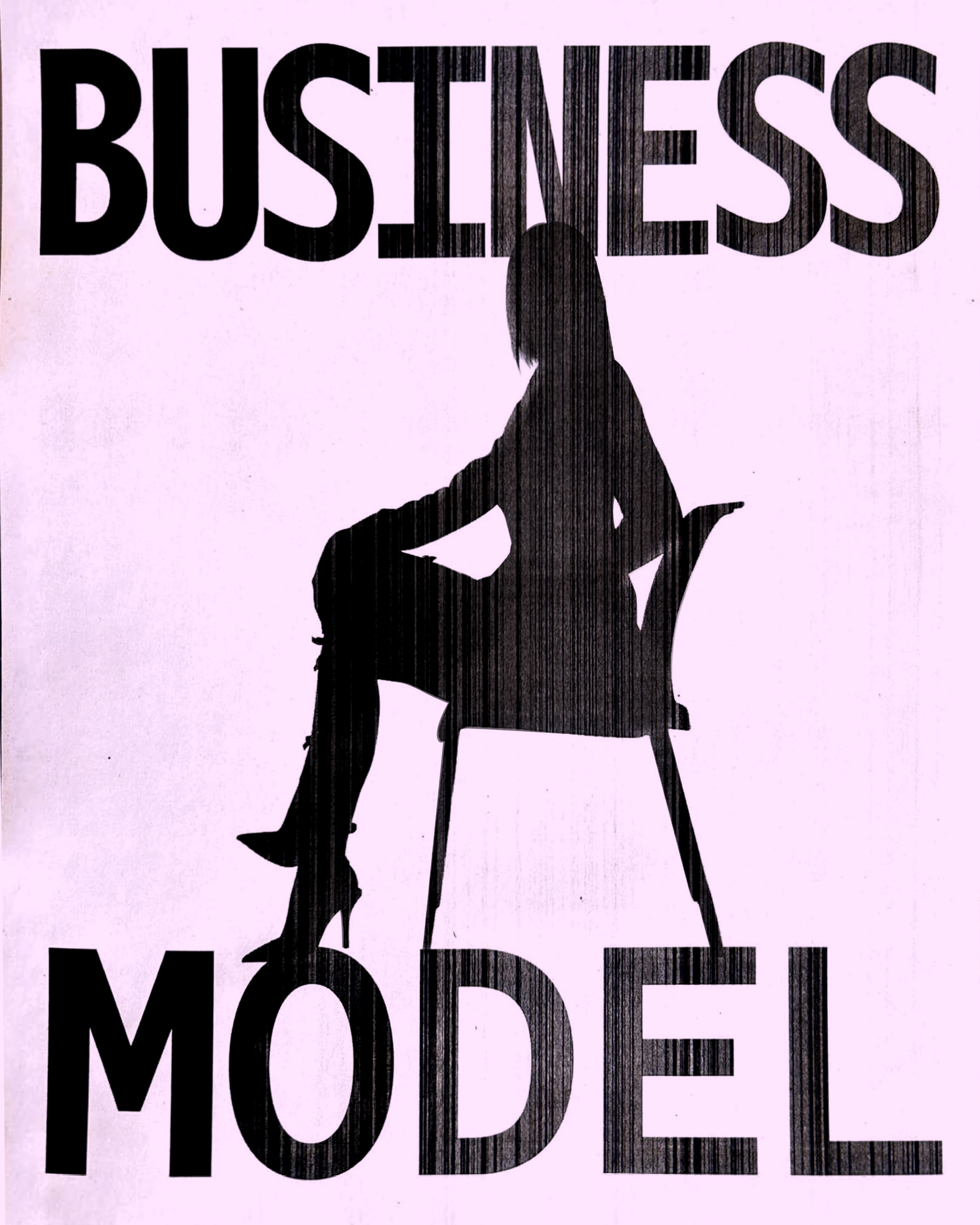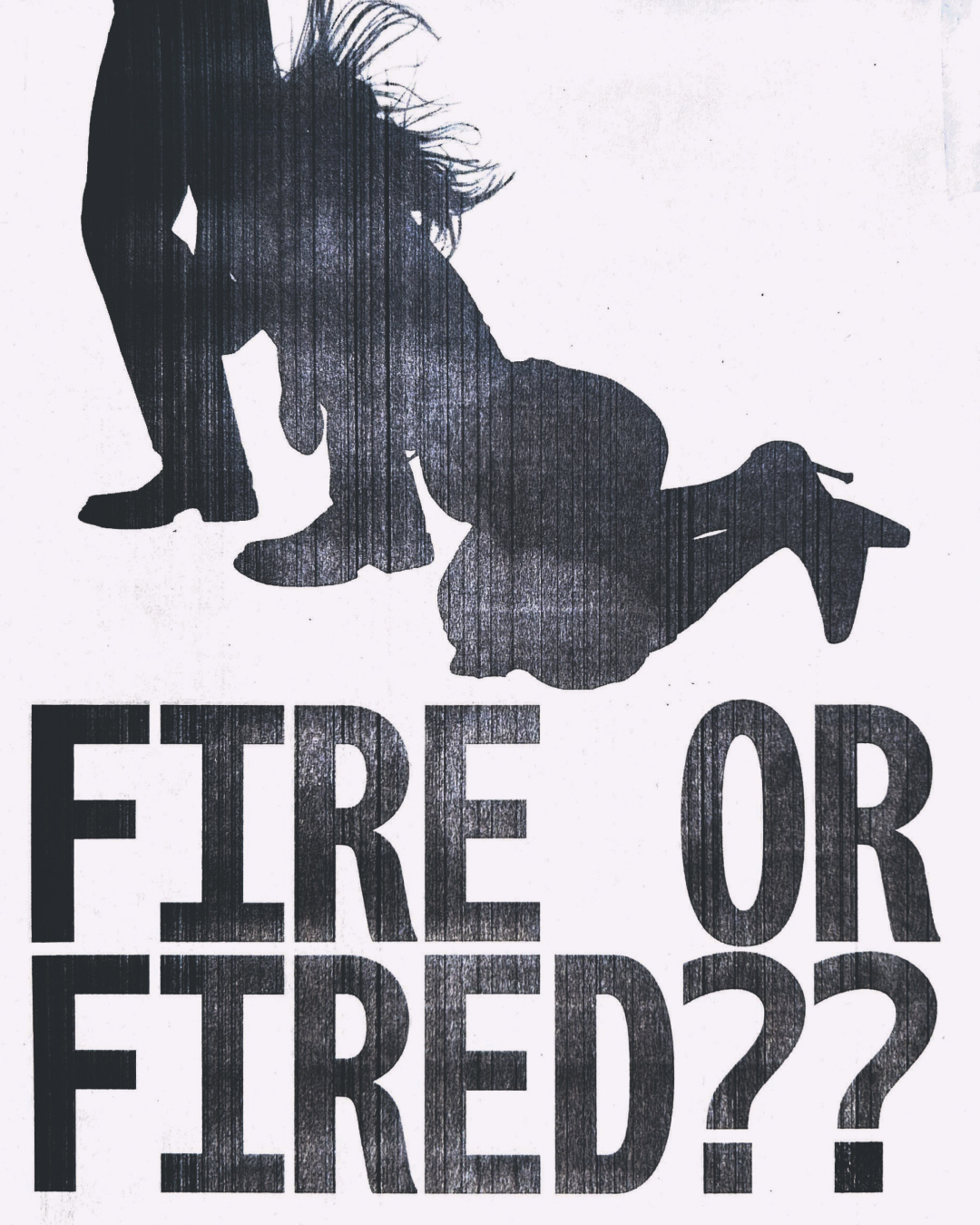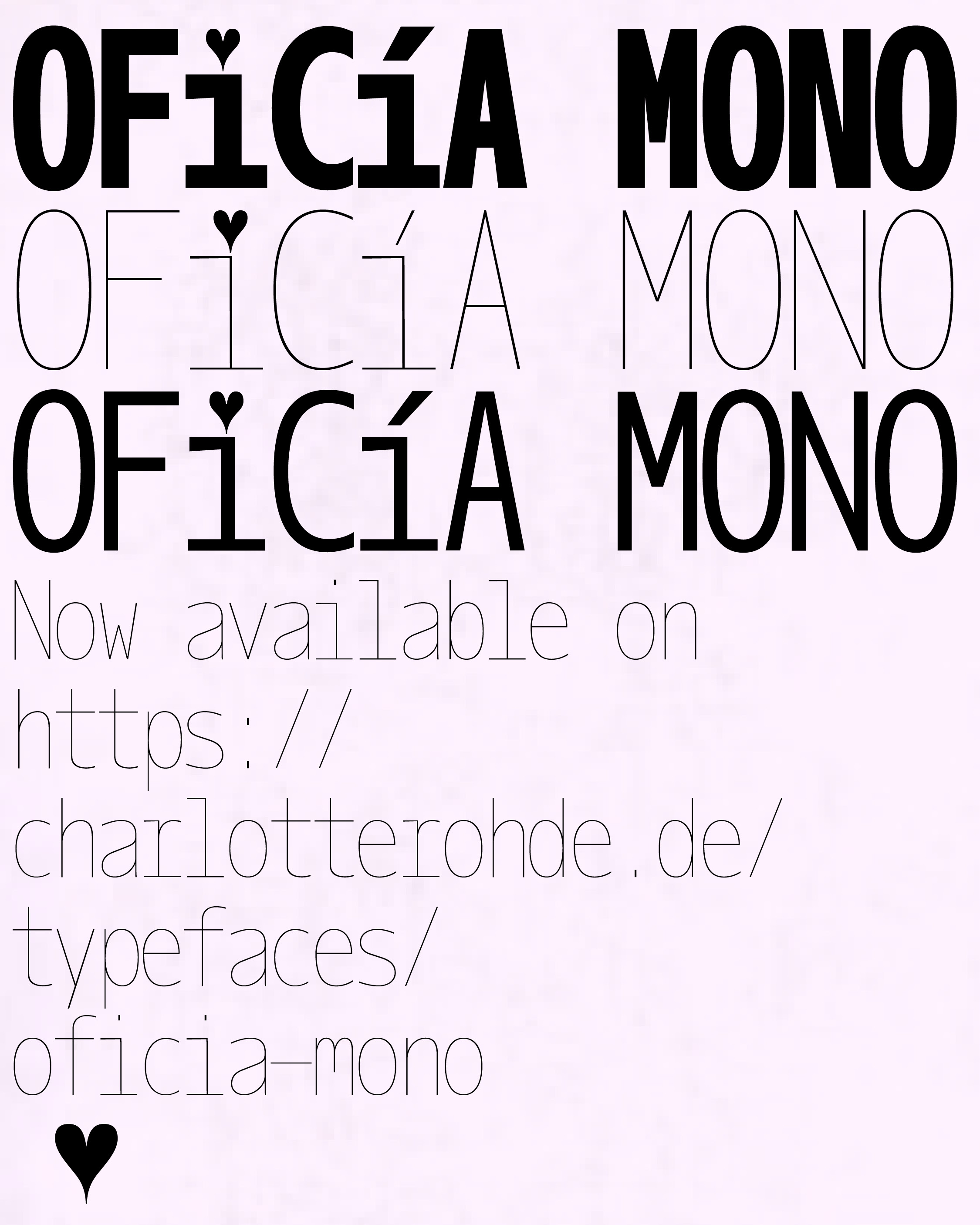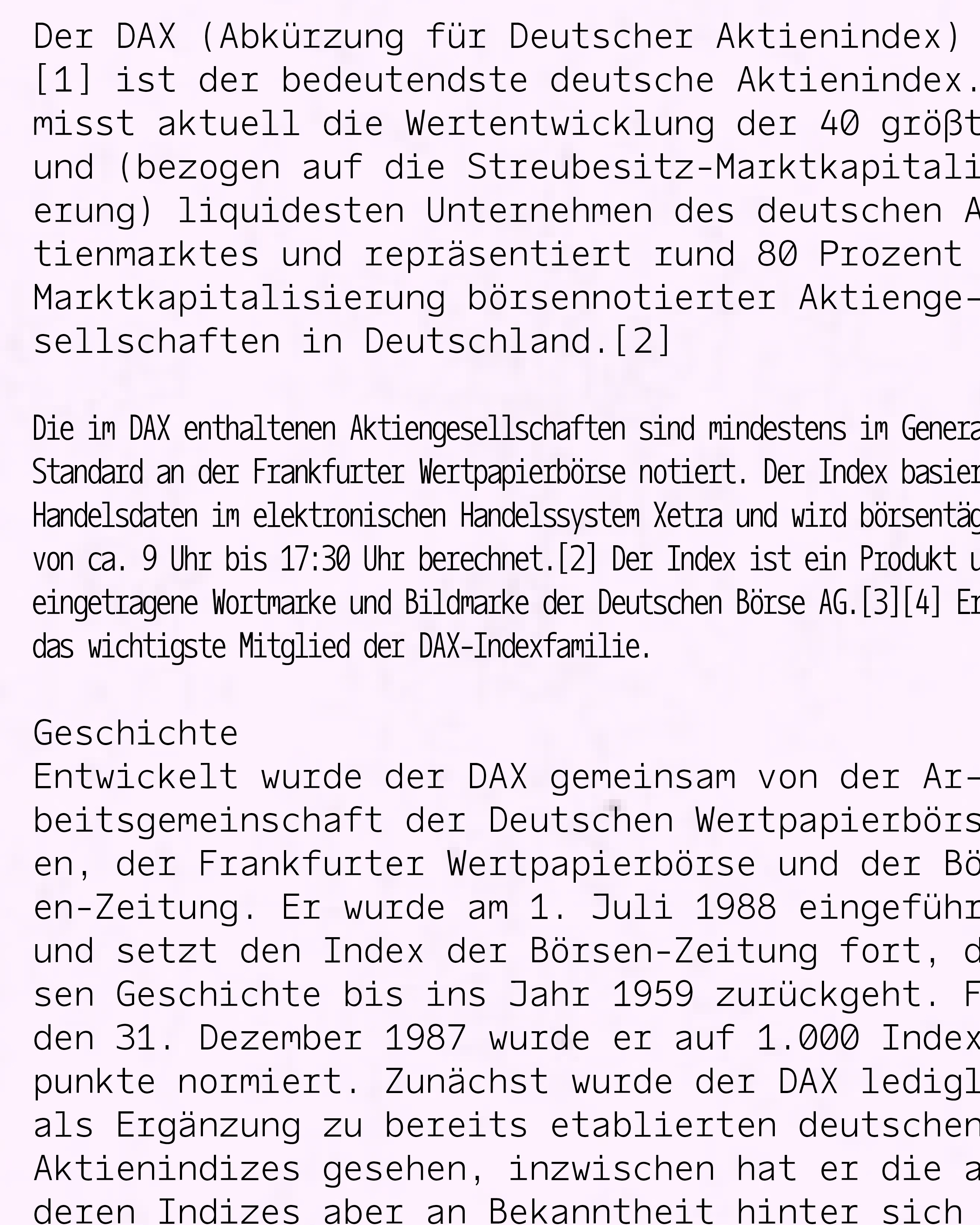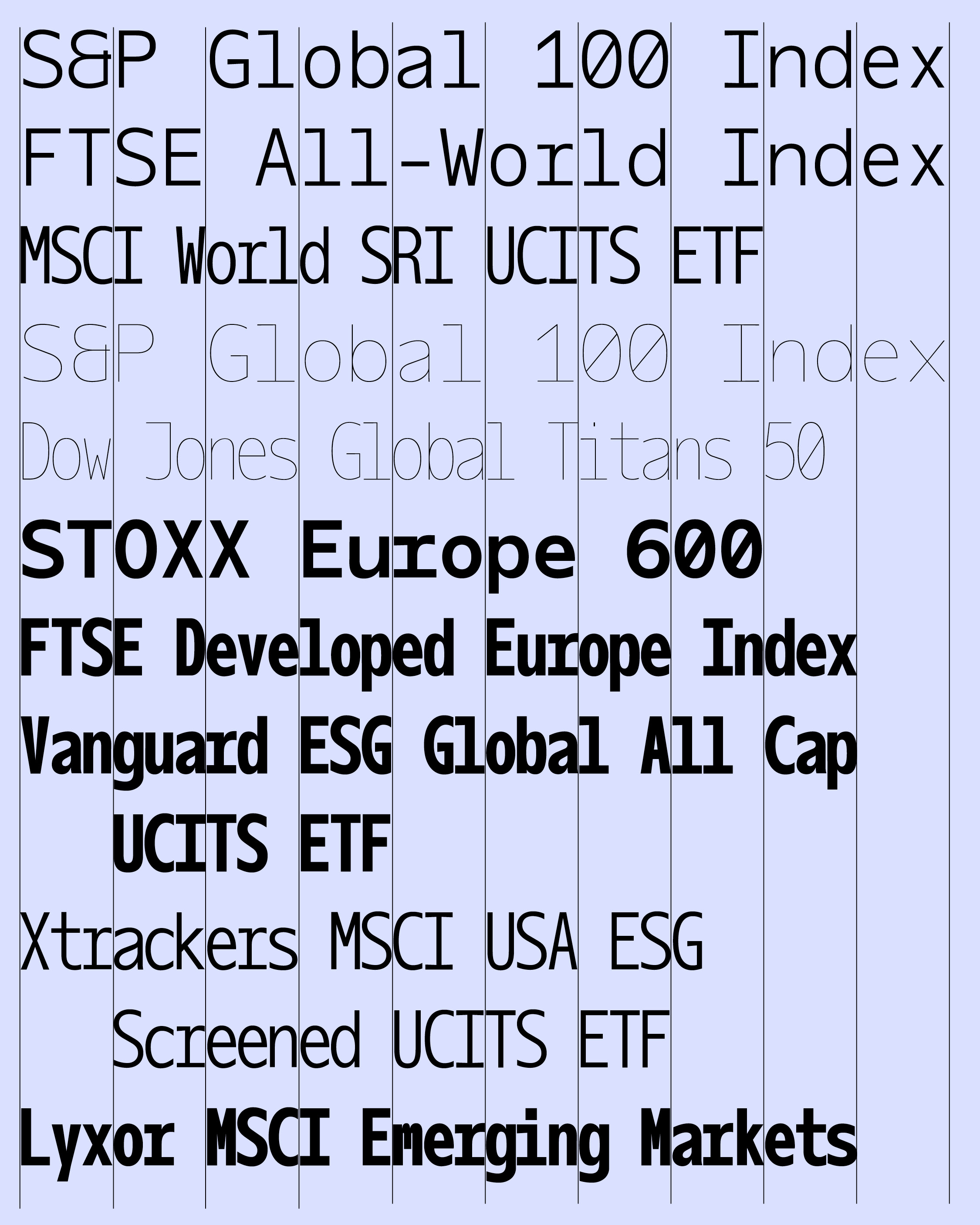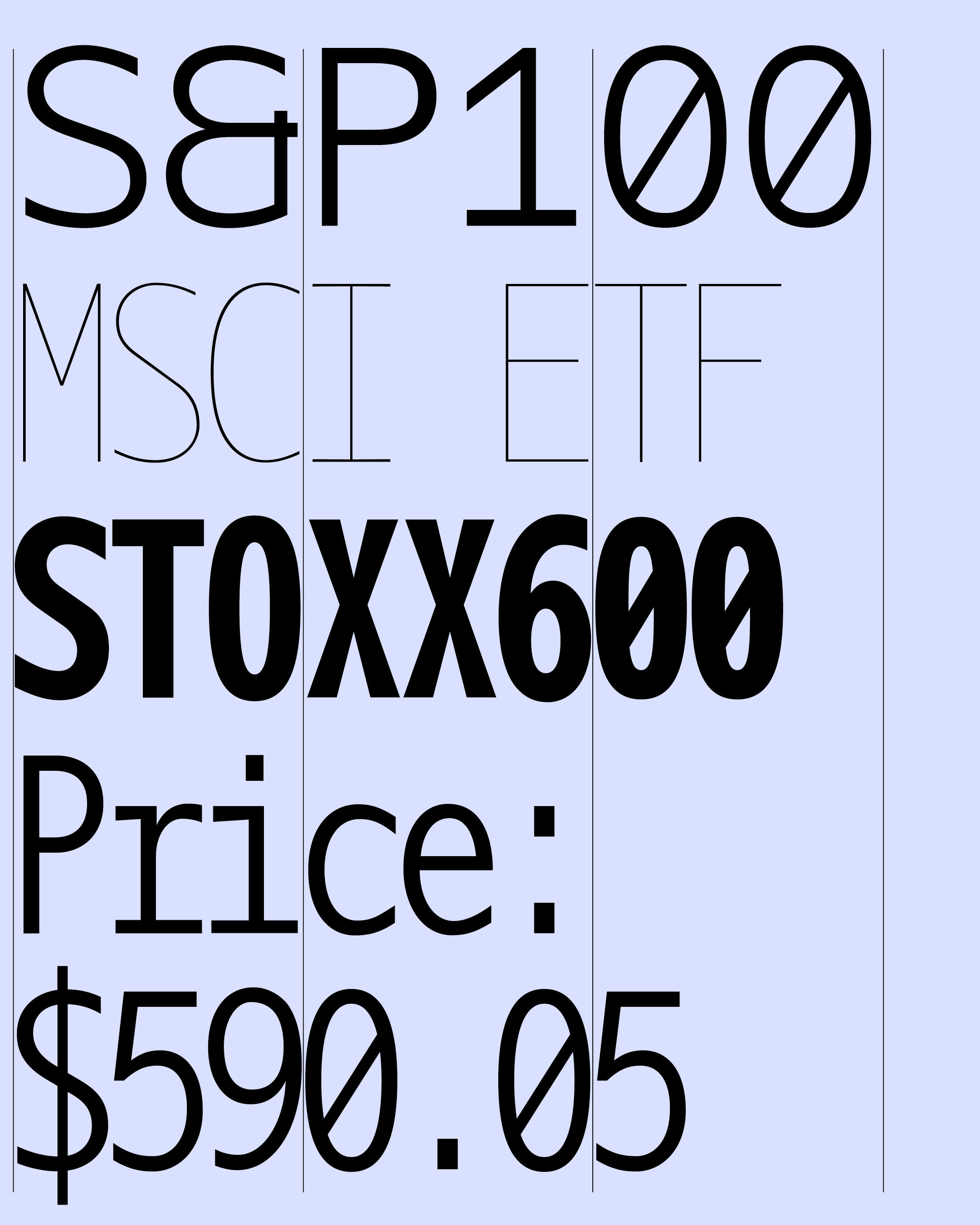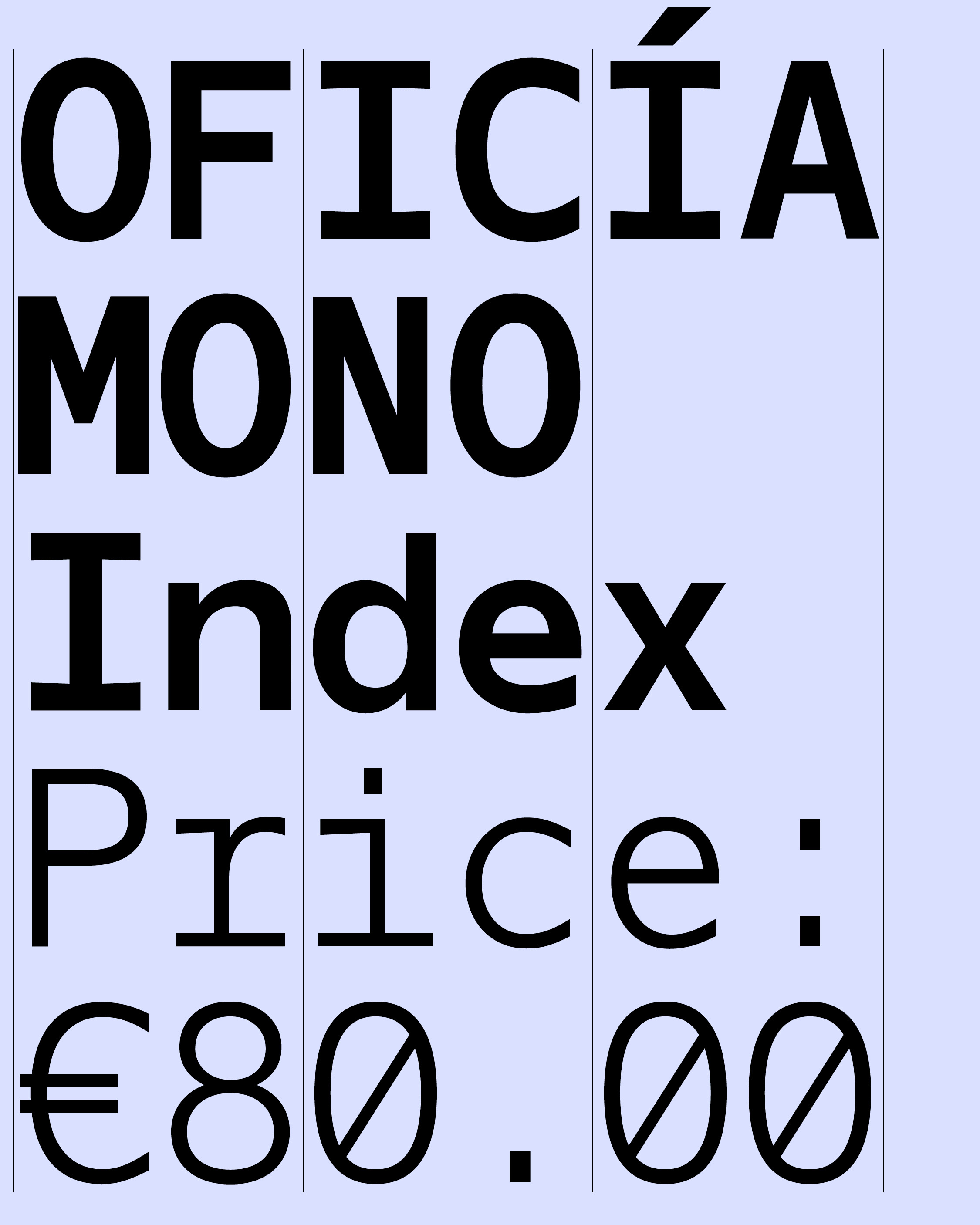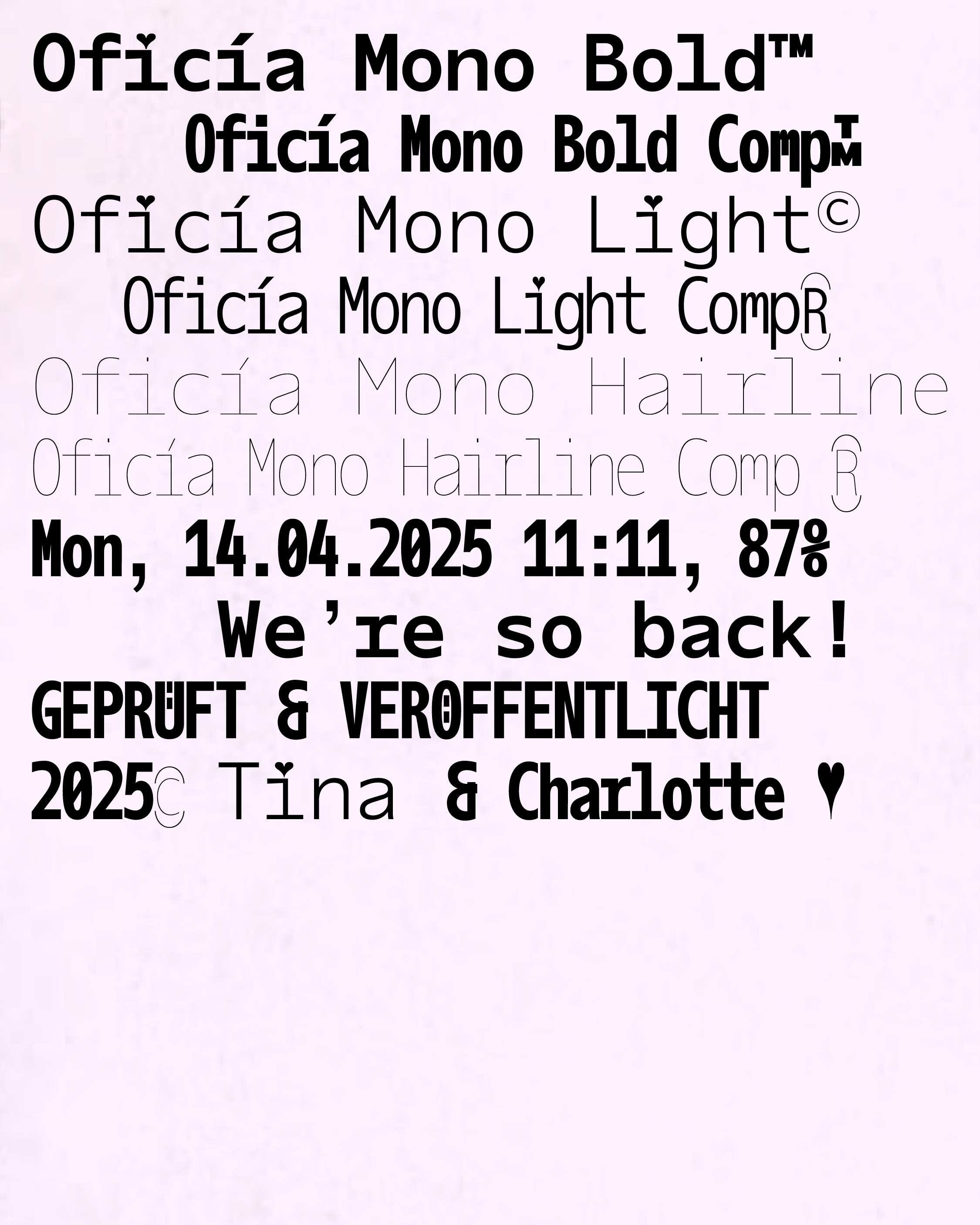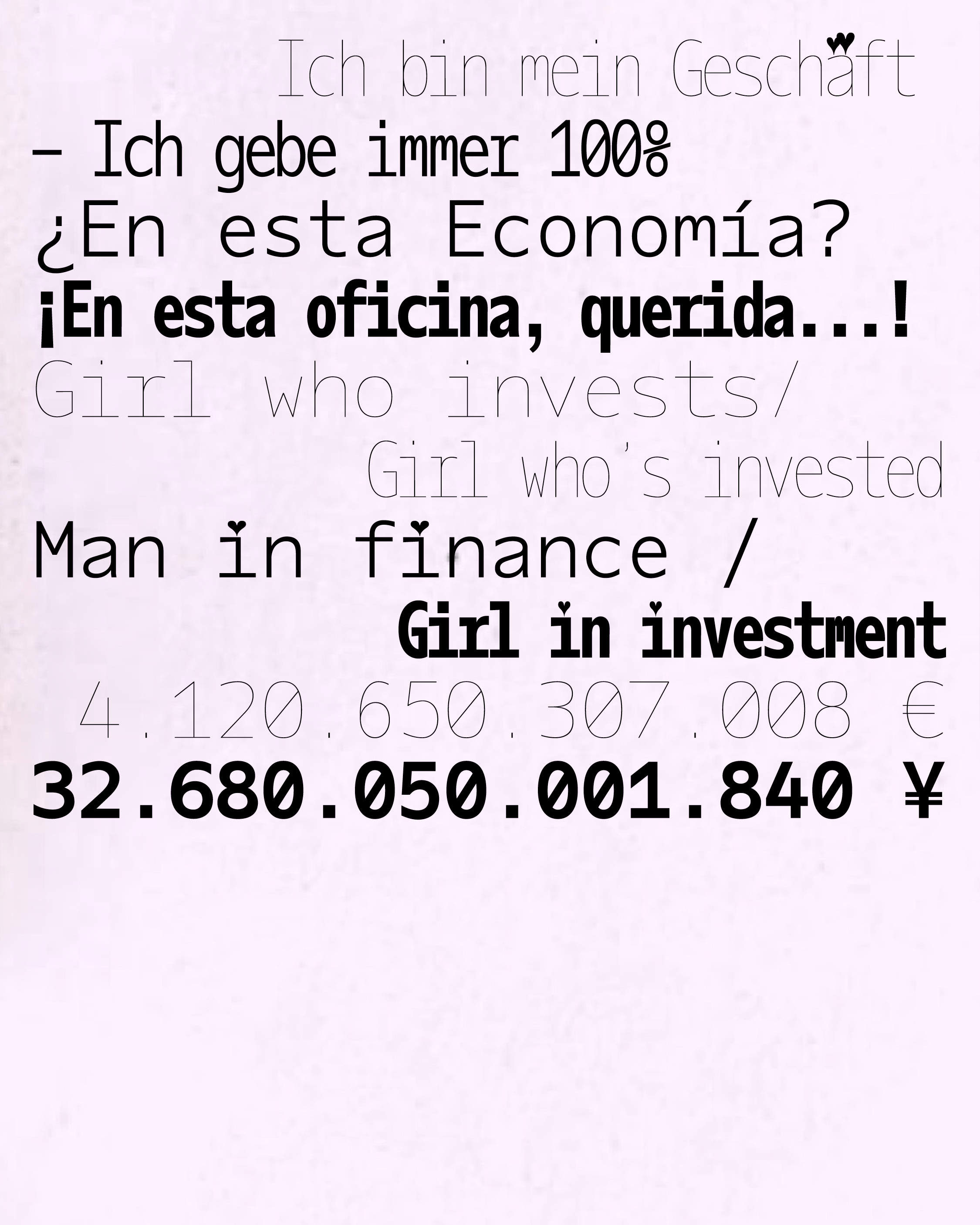
Oficía MONO
Oficía is a Girl who's invested.
Oficía MONO
Hairline Comp Hairline Light Comp Bold Comp Light Bold Regular Comp
Stylistic Set 1
Stylistic Set 3